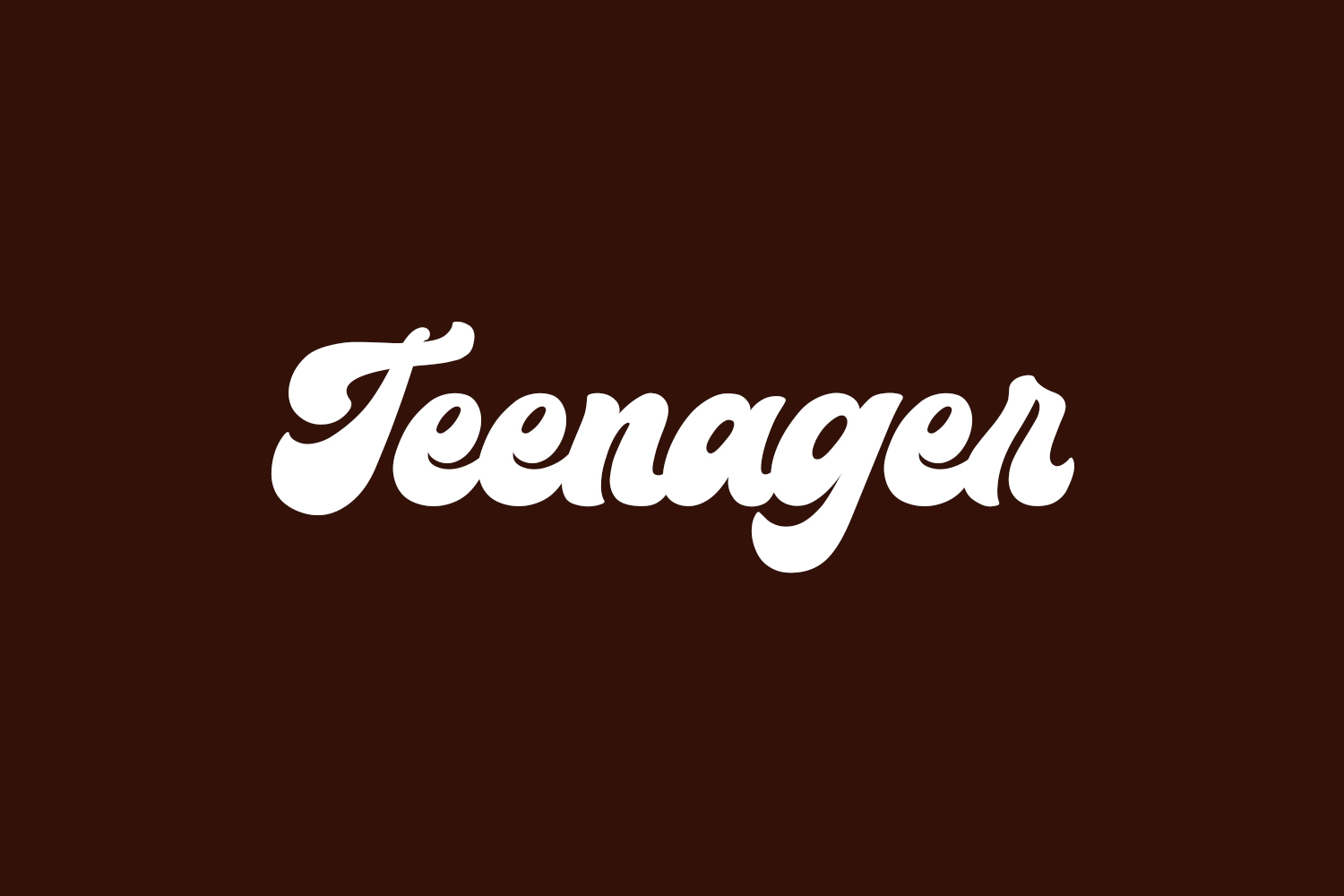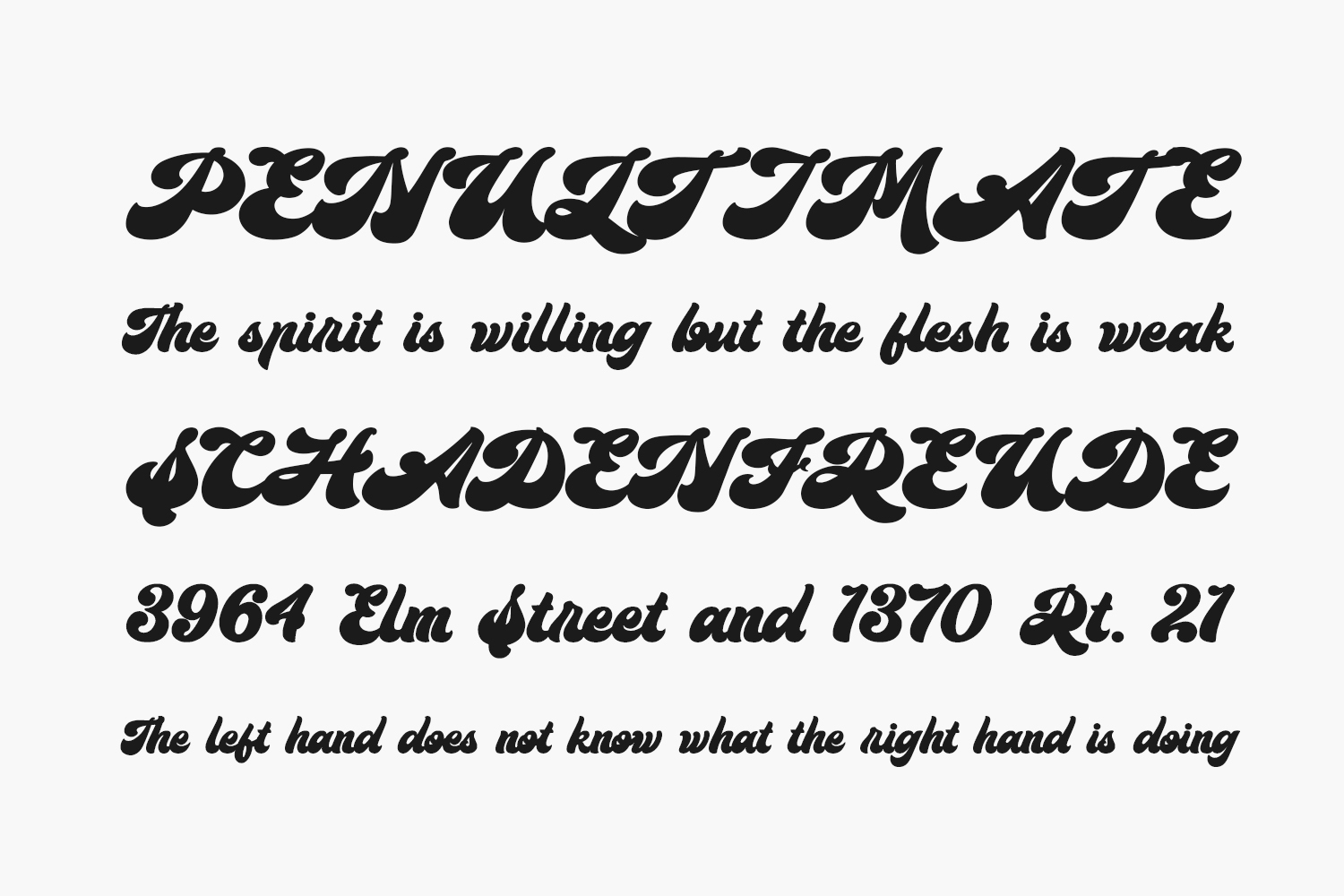
Teenager Free Font is a cool, paint-brushed, and retro-styled display font. This font is imposing and features uniquely shaped letters, and as a result, it will easily match a wide range of creations that require a distinct touch.